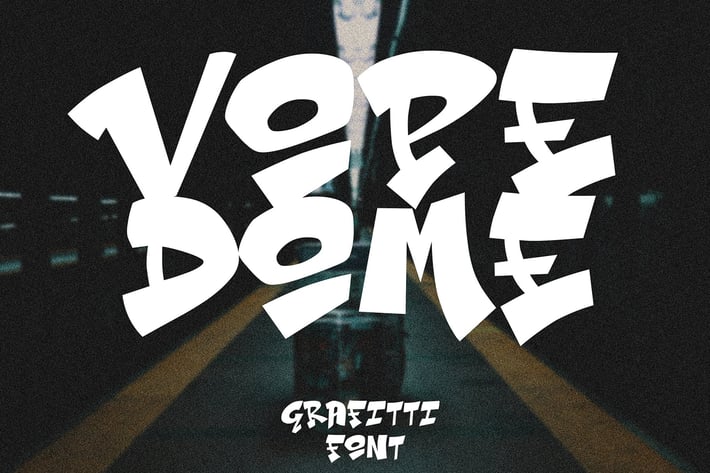
Vope Dome - Bold Graffiti Font
Introducing the game-changer for your design projects - the Vope Dome Bold Graffiti Font. Are you ready to unleash a visual masterpiece that demands attention? Look no further. With its powerful and daring presence, "Vope Dome" transforms ordinary words into extraordinary statements. Elevate your branding, posters, and merchandise with the edgy allure of authentic graffiti artistry. Crafted with meticulous detail, every letter encapsulates the urban spirit, adding an unmatched sense of dynamism to your creations. Don't just communicate - captivate with the unmistakable energy of Vope Dome and watch your designs become legendary.